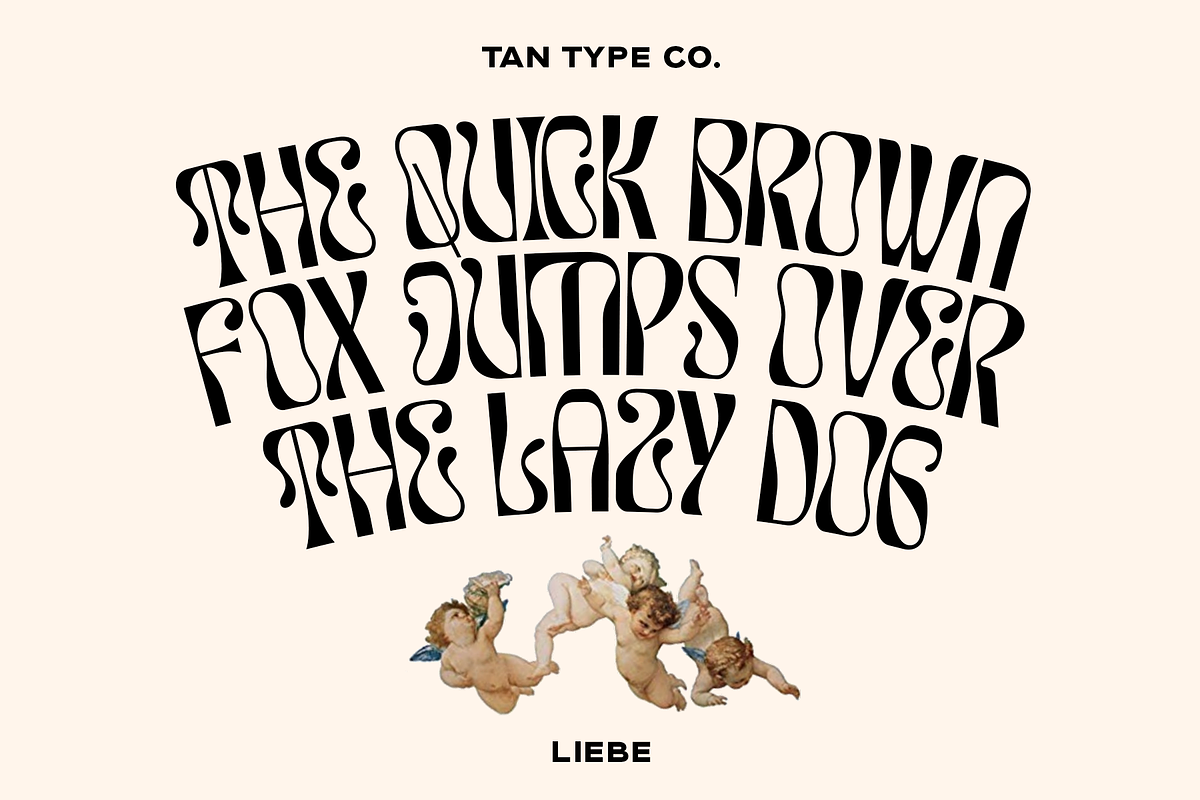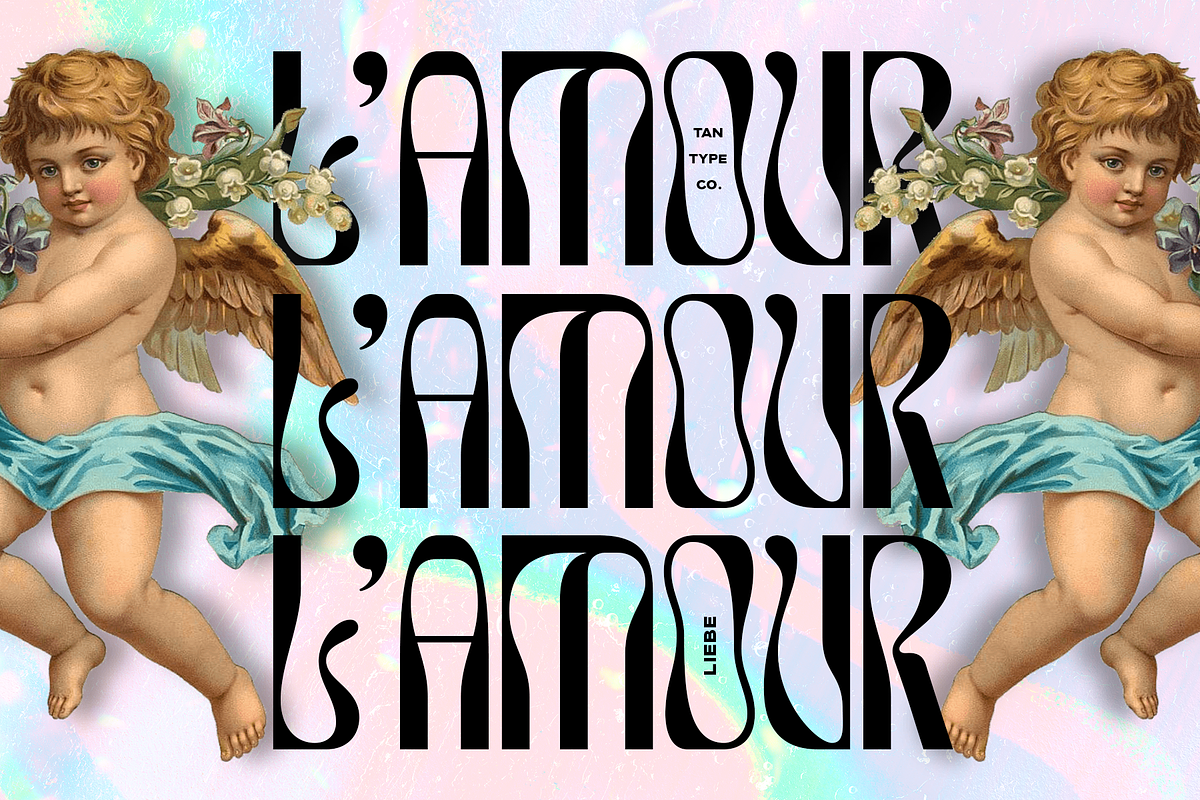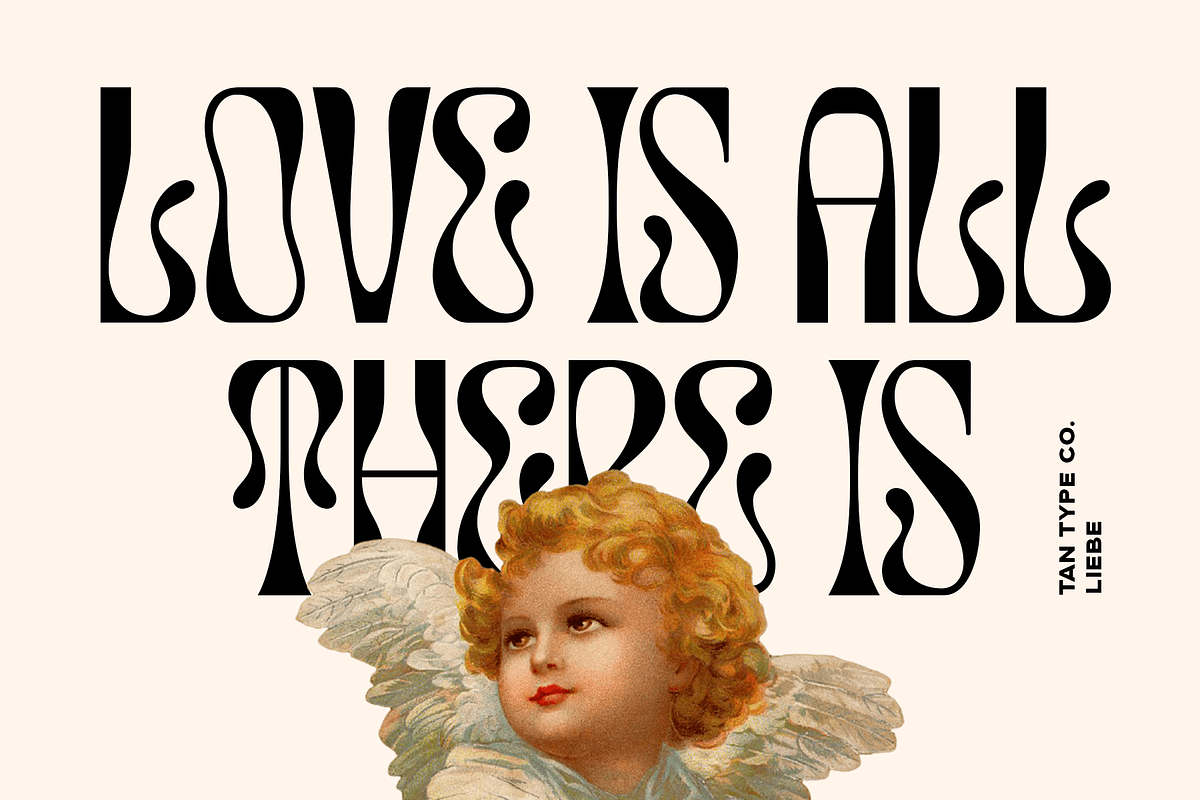
Tan Liebe Font
TAN – LIEBE is an Art Nouveau inspired font with a modern twist. Decorative enough to catch your attention yet clean enough to be readable.